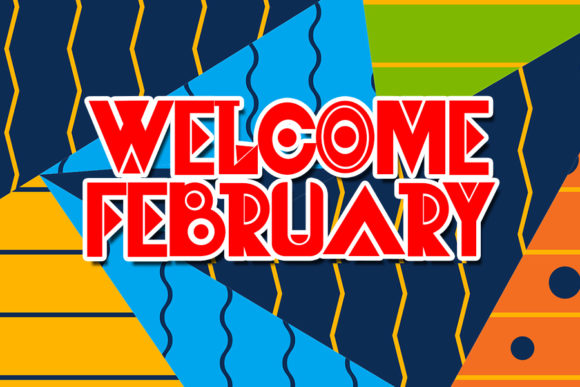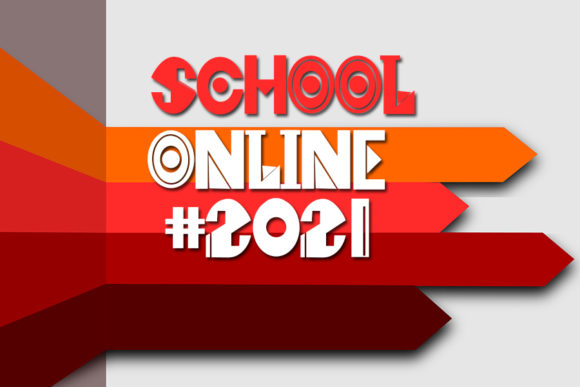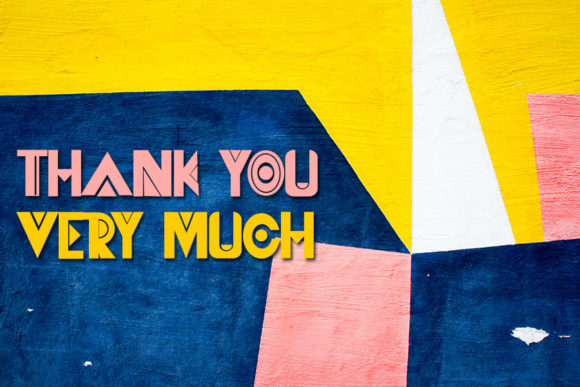
Introduction to Jungle Jump Font
Jungle Jump is a cute and colorful display font.
It embodies playfulness and authenticity and is the perfect choice for any children activity or school project Add this chunky lettered font to your designs and notice how it makes them come alive.
Key Features of Jungle Jump Font
Why Choose Jungle Jump Font?
Jungle Jump Font offers exceptional quality and versatility, making it a valuable addition to your design toolkit. Whether you’re creating for personal projects or commercial use, Jungle Jump Font delivers professional results.